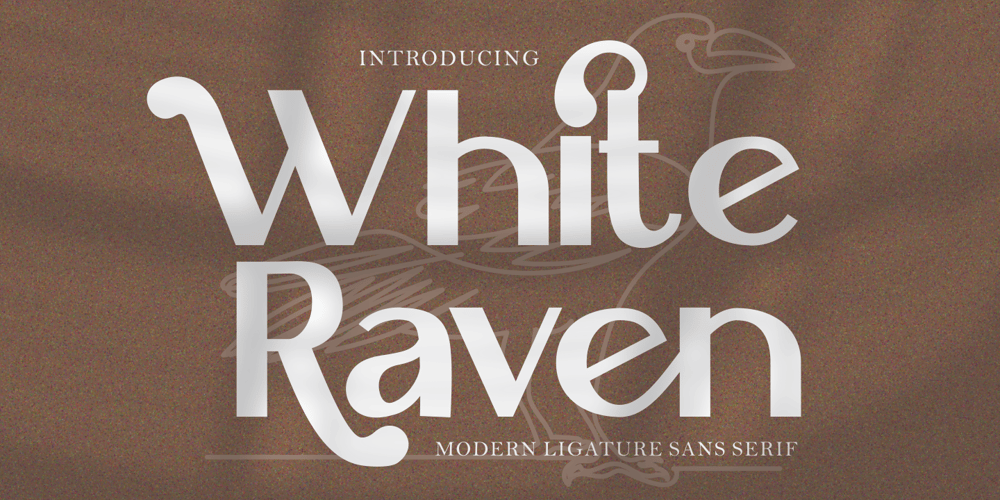
White Raven Font Family was designed by Putra Novembria Candra Kusuma and published by Putracetol. White Raven contains 2 styles and family package options. White Raven – Modern Ligature Sans Serif Font. Inspired from unique typography and lettering in the elegant alphabet from vintage megazine and we combine with modern typography style. With modern ligature you can make great lettering for beautiful artwork. Come with open type feature ( a lot of alternates and end swash), its help you to make great lettering.White Raven best uses for Logotype, heading,cover, poster, logos, quotes, product packaging, header, merchandise, social media & greeting cards and many more. White Raven font is also support multi language.To access the alternate glyphs, you need a program that supports OpenType features such as Adobe Illustrator CS, Adobe Photoshop CC, Adobe Indesign and Corel Draw.